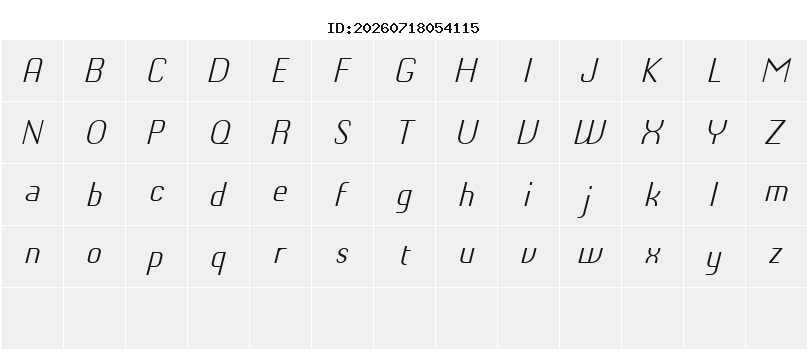
Chiq Reduced Preview
• Font Name: Chiq Reduced
• Font Style: Light Italic
• Font ID: IngoZimmermann: Chiq Reduced Light Italic: 2013
• Full Font Name: Chiq Reduced Light Italic
• Designer: Ingo Zimmermann
• Manufacturer: Ingo Zimmermann
About Chiq Reduced.ttf
Chiq Reduced.ttf is a modern, elegant sans-serif font designed for ultimate readability and visual harmony. Perfect for branding, headlines, web design, and print materials.